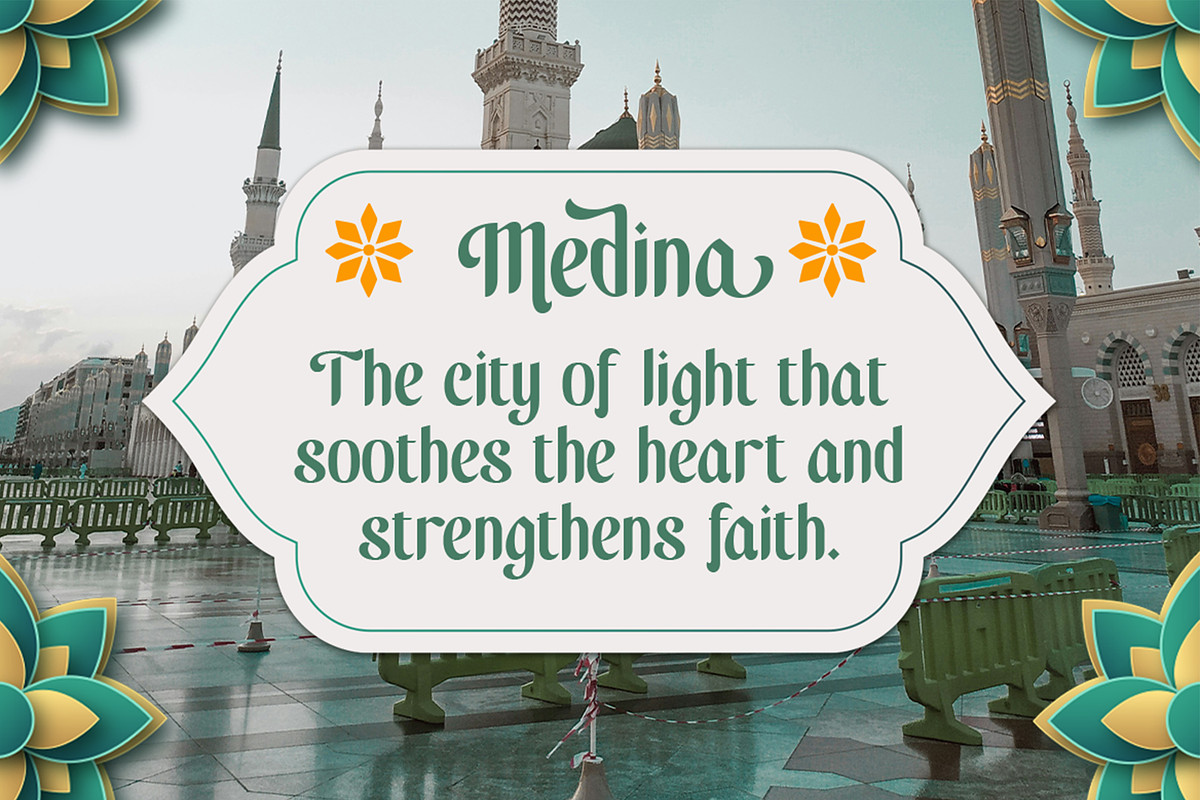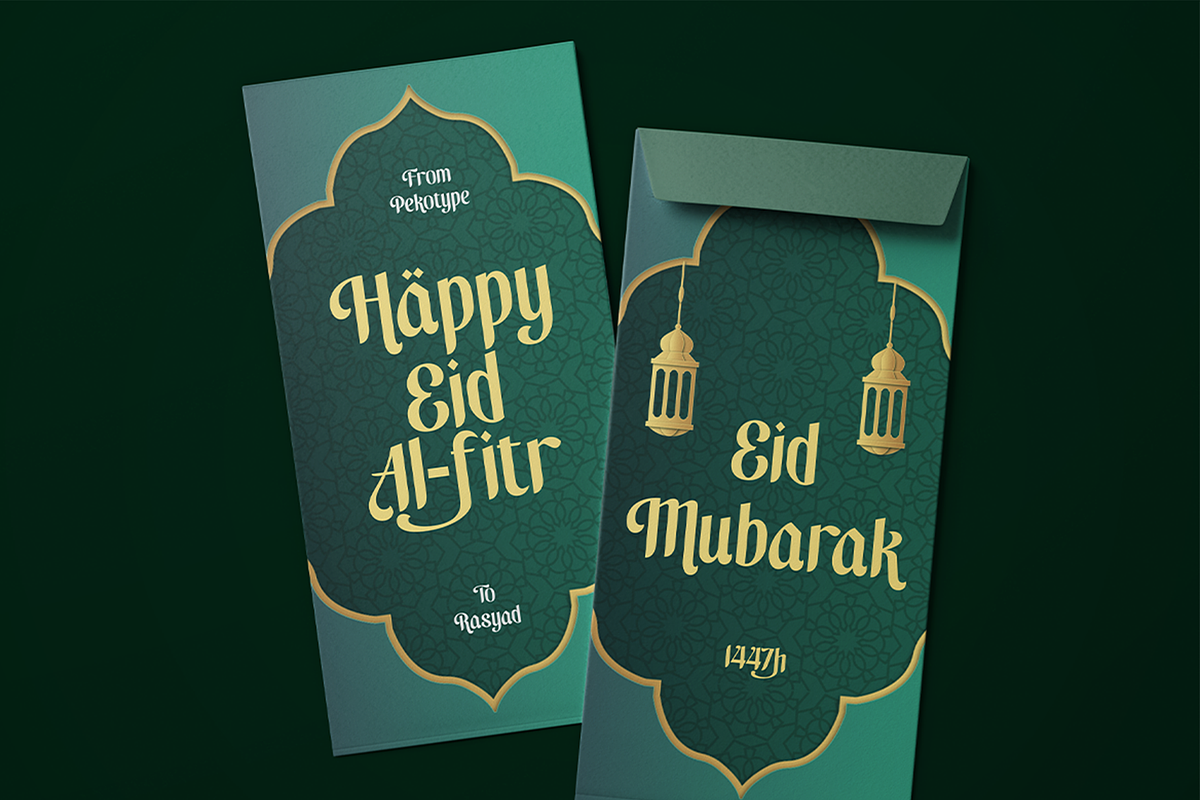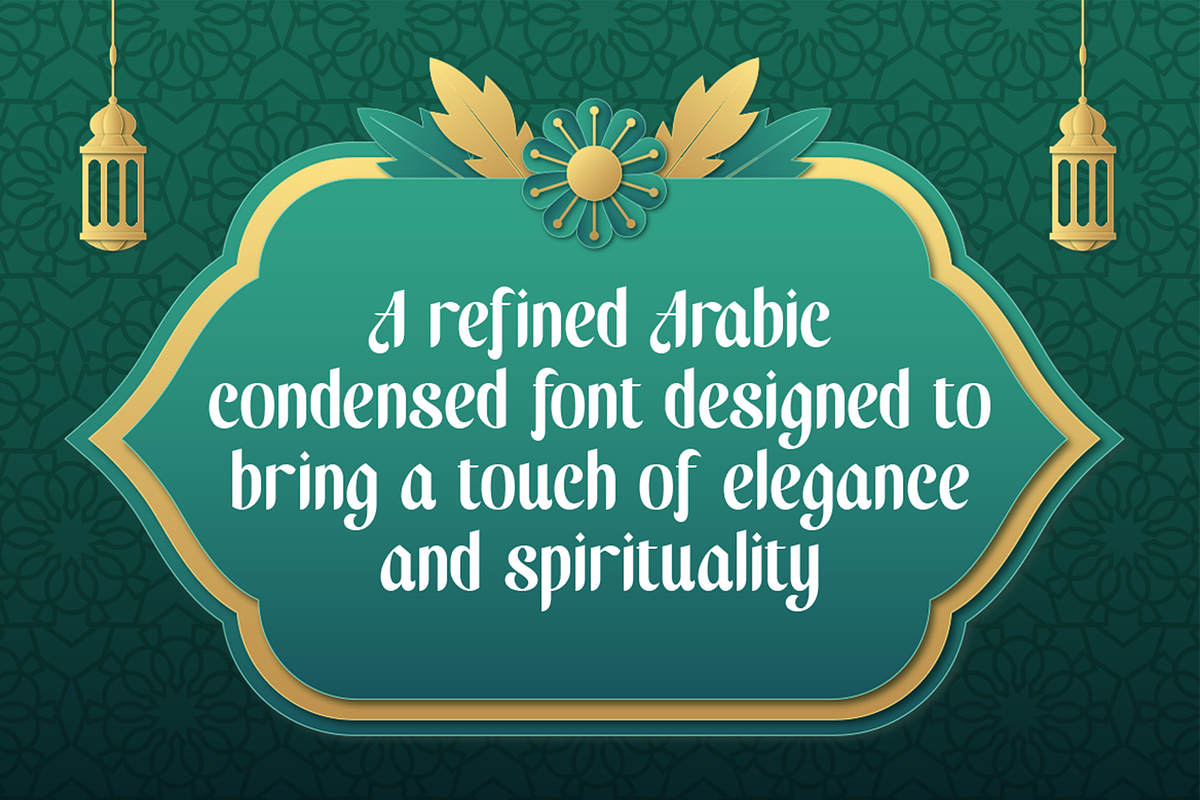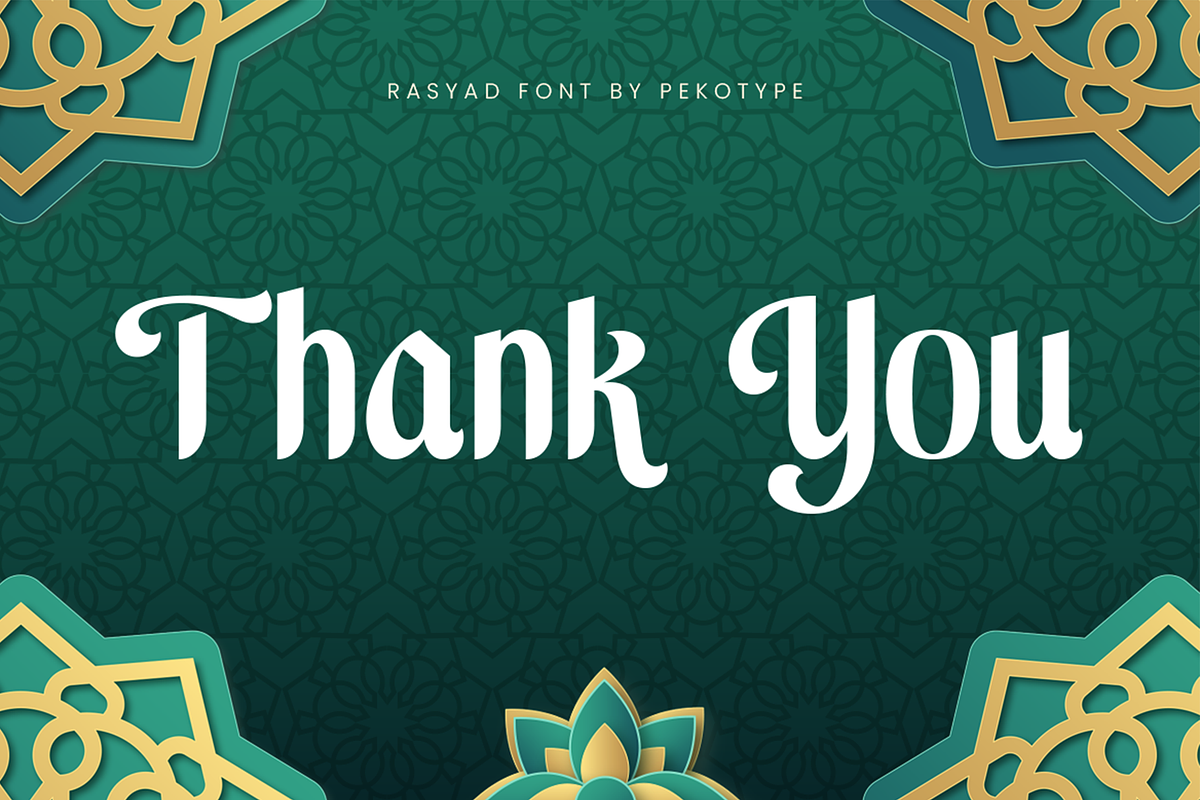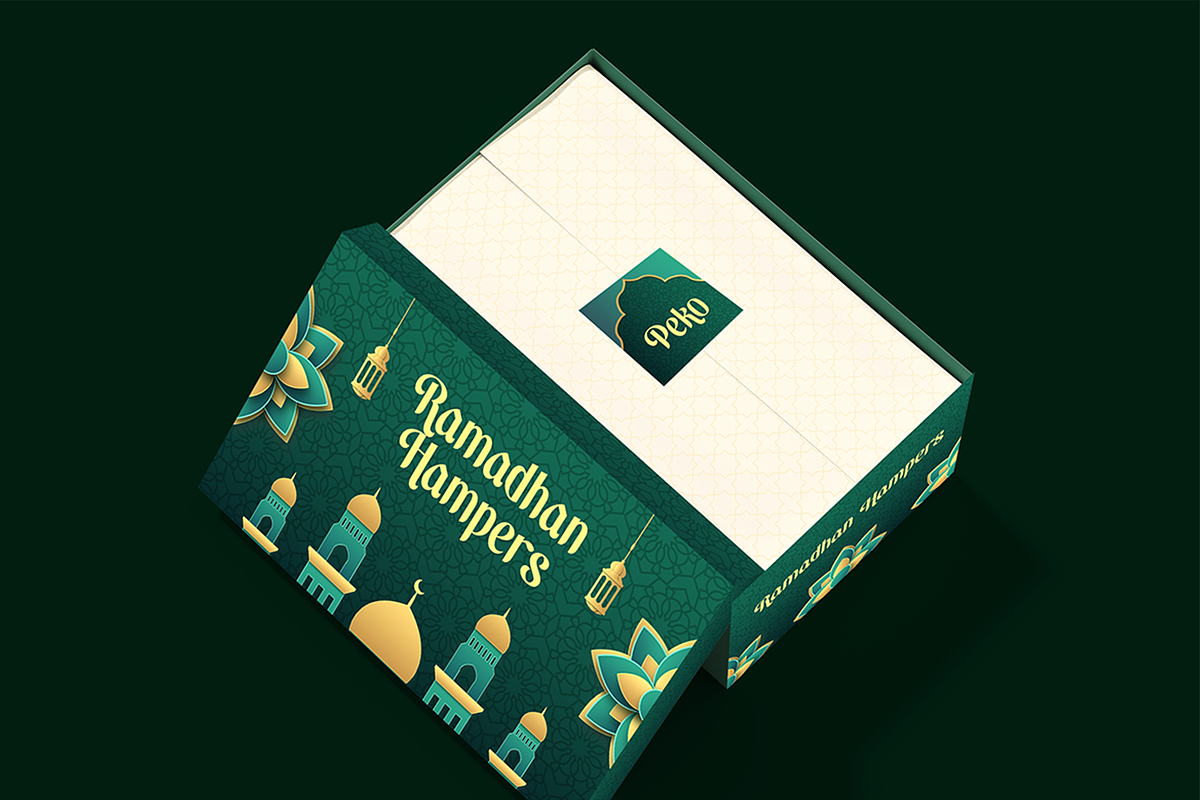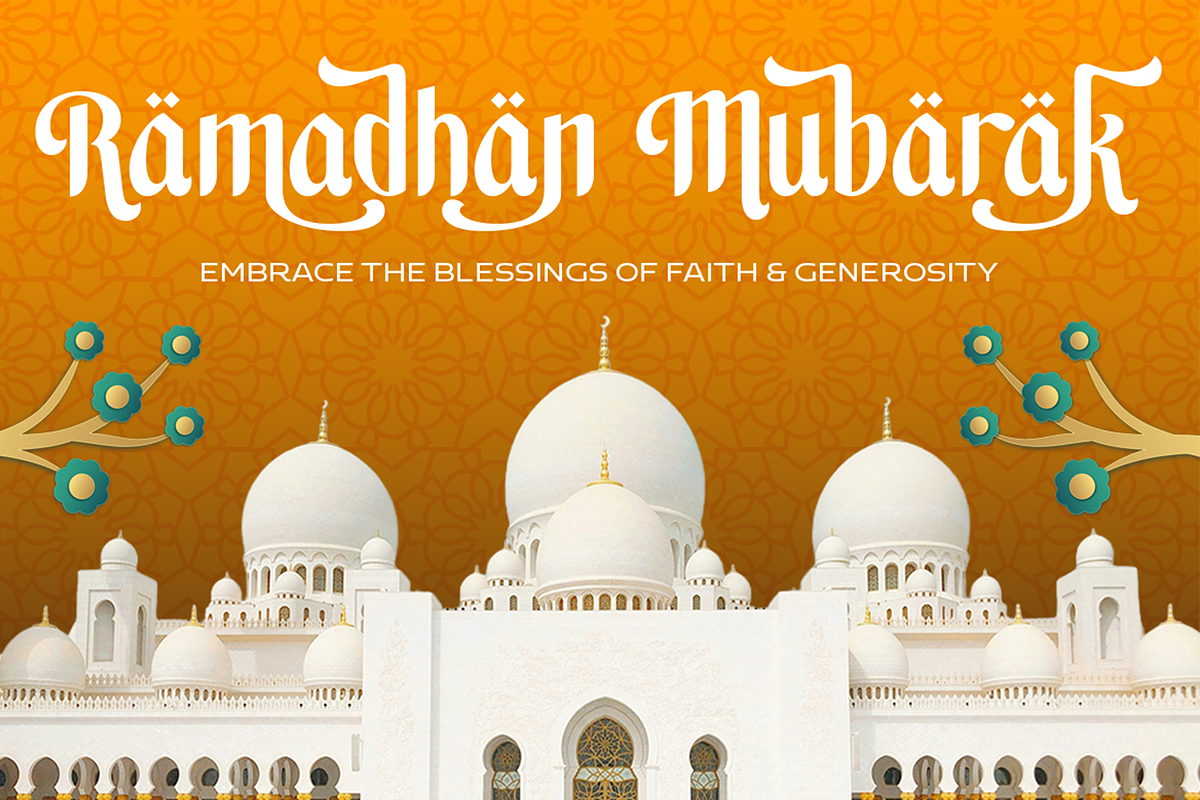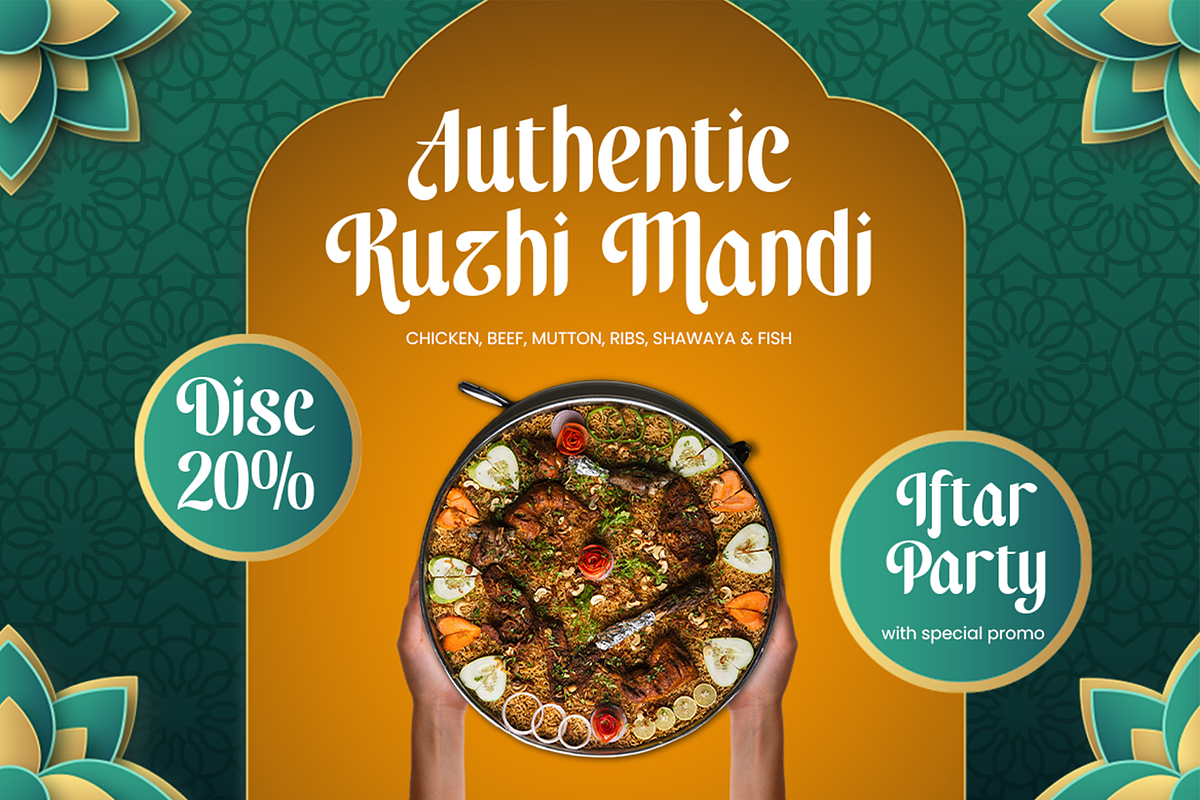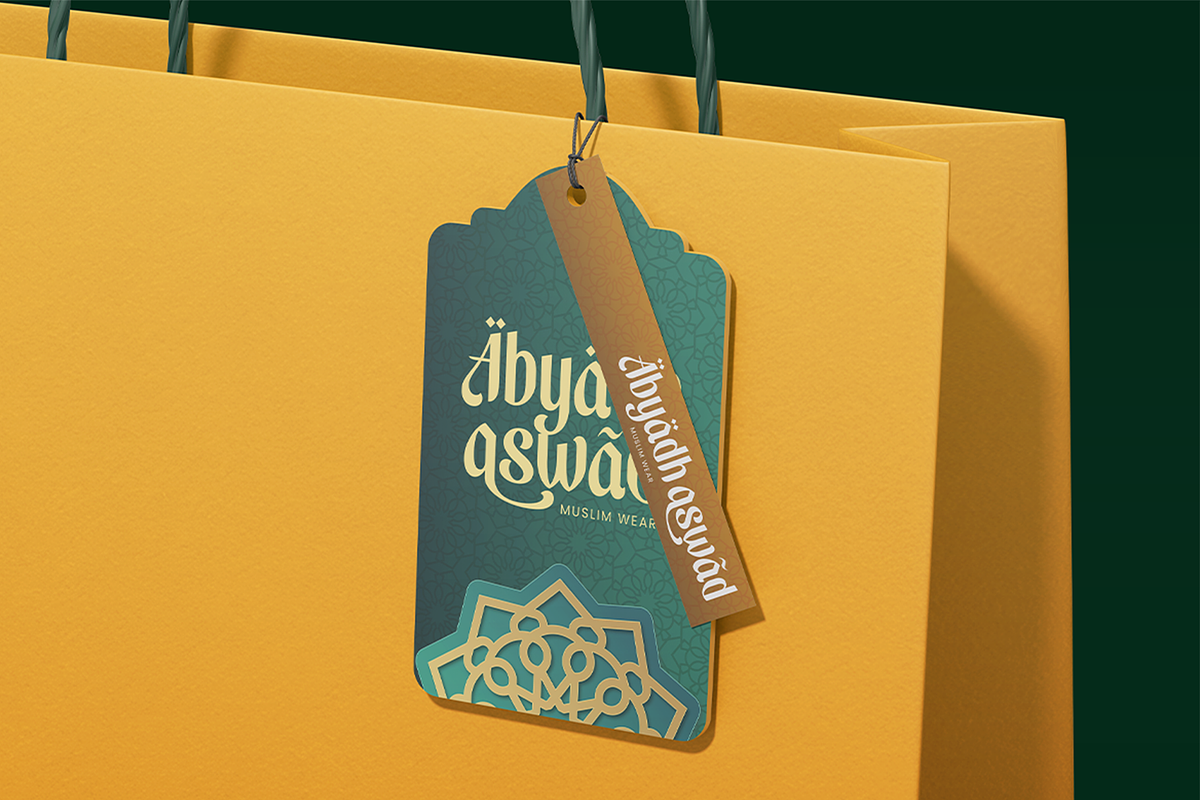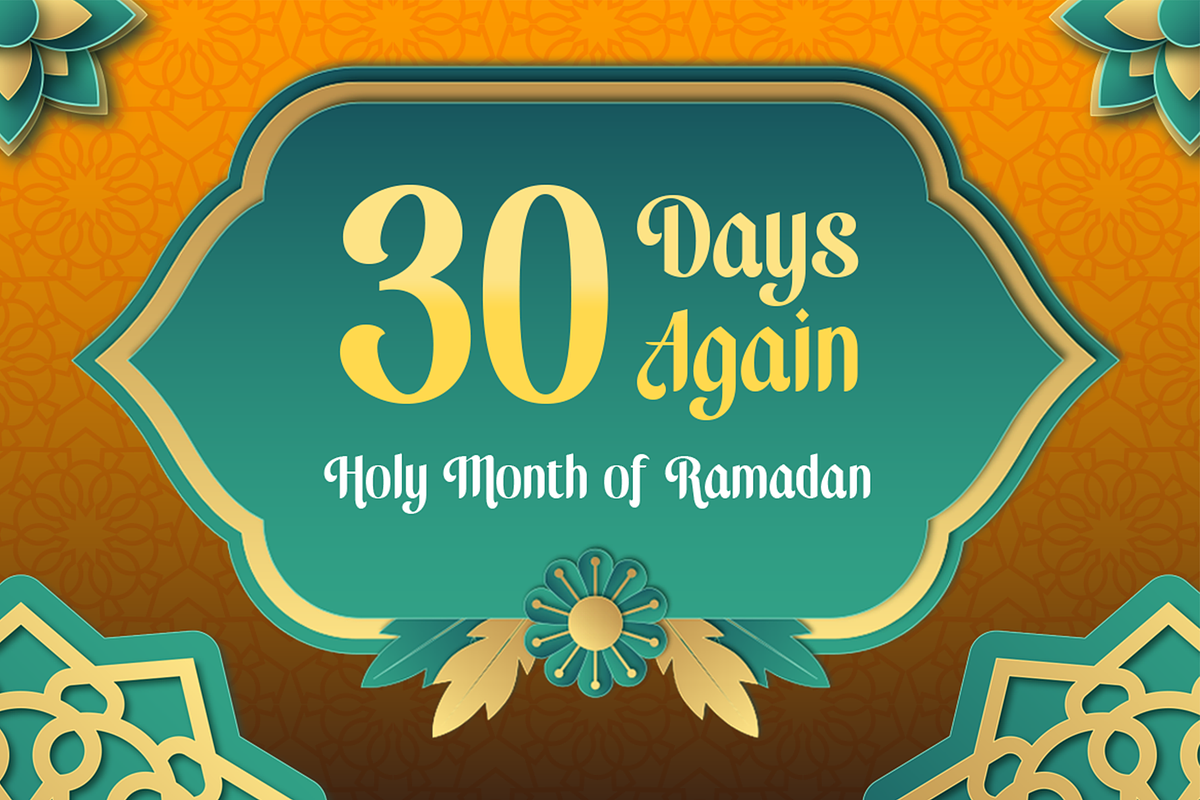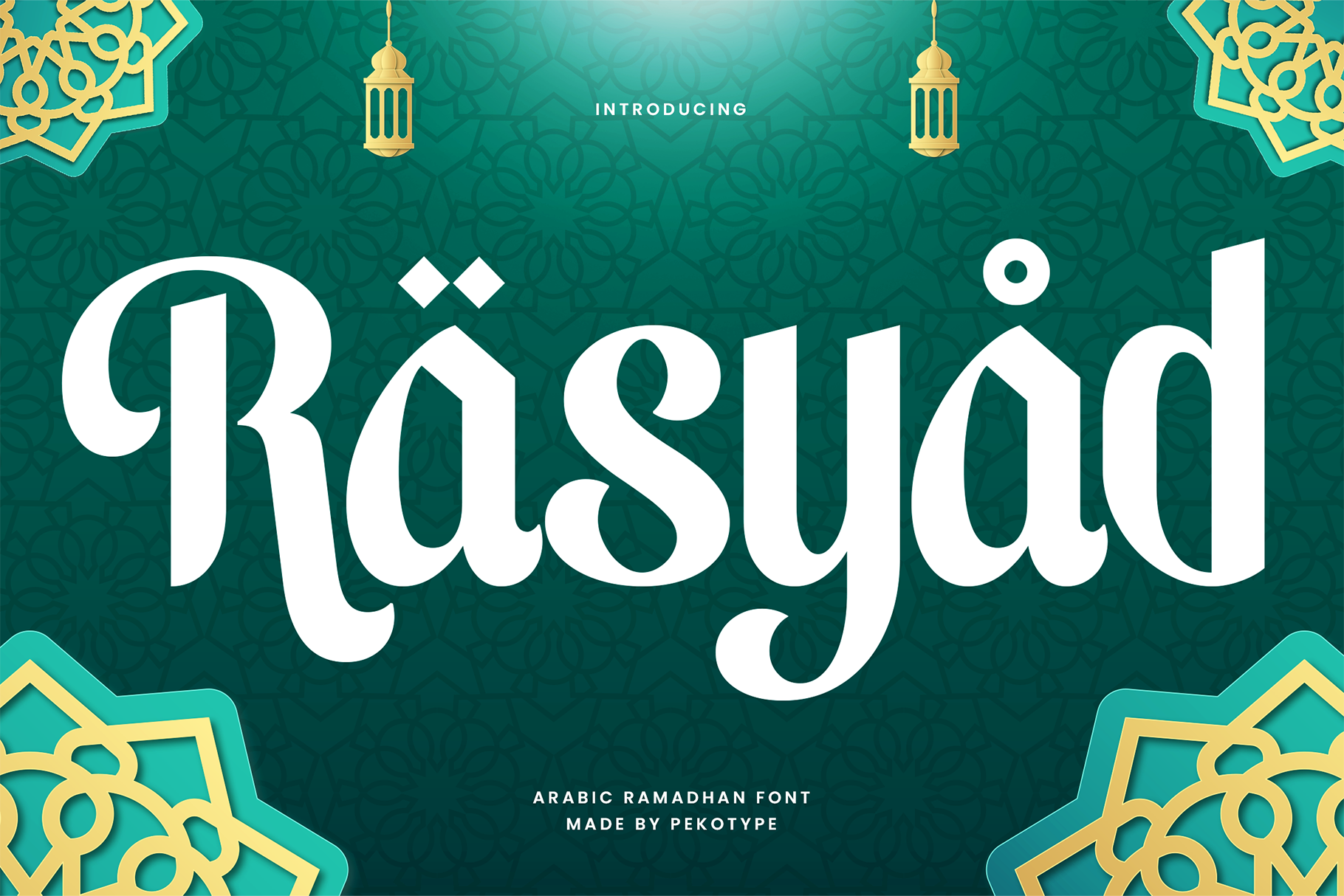
Rasyad - Elegant Arabic Ramadan Font
RASYAD – Elegant Condensed Arabic-Inspired Font
RASYAD is an elegant Arabic-inspired condensed typeface designed to convey spirituality, refinement, and cultural richness. With graceful curves, balanced proportions, and refined stroke details, RASYAD blends traditional Middle Eastern aesthetics with a modern typographic structure that feels both timeless and contemporary.
Designed with uppercase and lowercase characters and equipped with multilingual support, RASYAD offers flexibility for global design needs. Its condensed form allows strong visual impact while remaining space-efficient, making it ideal for branding, logos, packaging, marketing campaigns, social media graphics, posters, invitations, and religious or cultural events such as Ramadan and Eid.
RASYAD is crafted to elevate designs that require elegance, warmth, and cultural authenticity. Whether used for luxury branding, Islamic events, editorial layouts, or premium promotional materials, RASYAD Typeface delivers a distinctive and sophisticated voice that stands out across digital and print media.
If you’re searching for an Arabic-style font that balances elegance with modern usability, RASYAD Typeface is a powerful choice for meaningful and visually refined design projects.
- Number, Symbol, & Punctuation